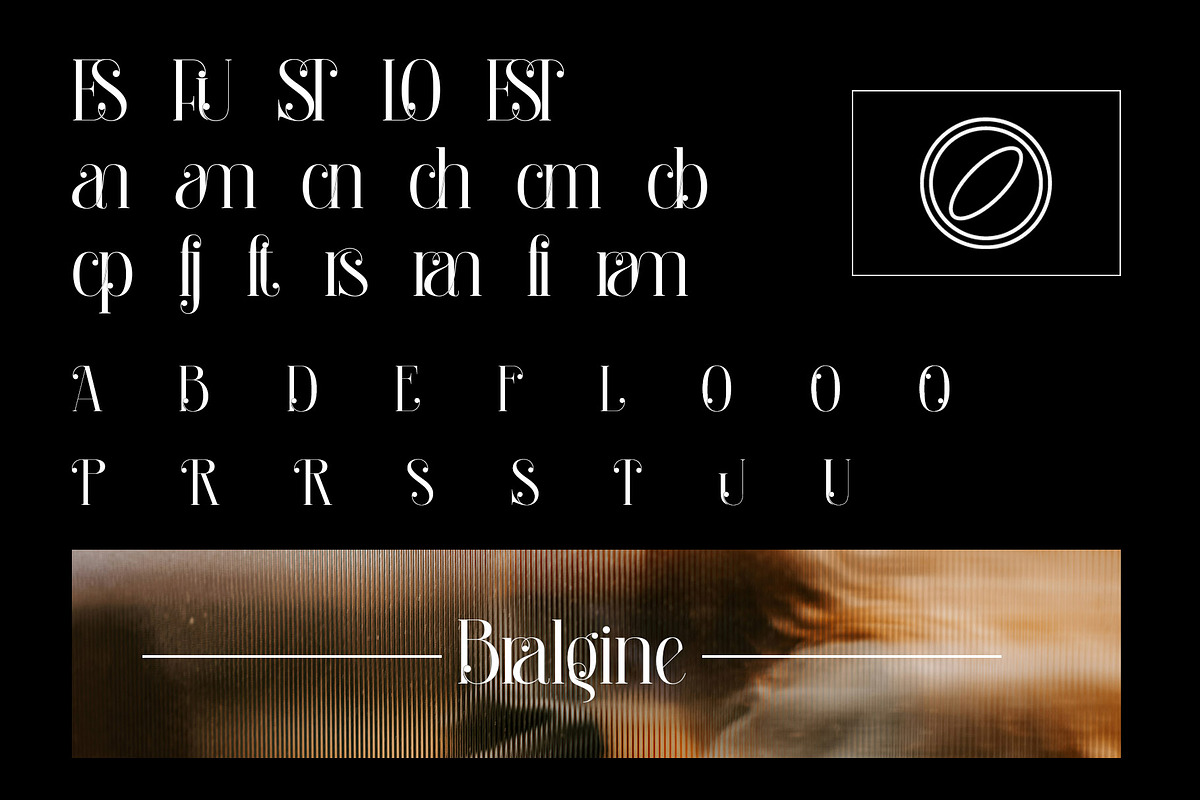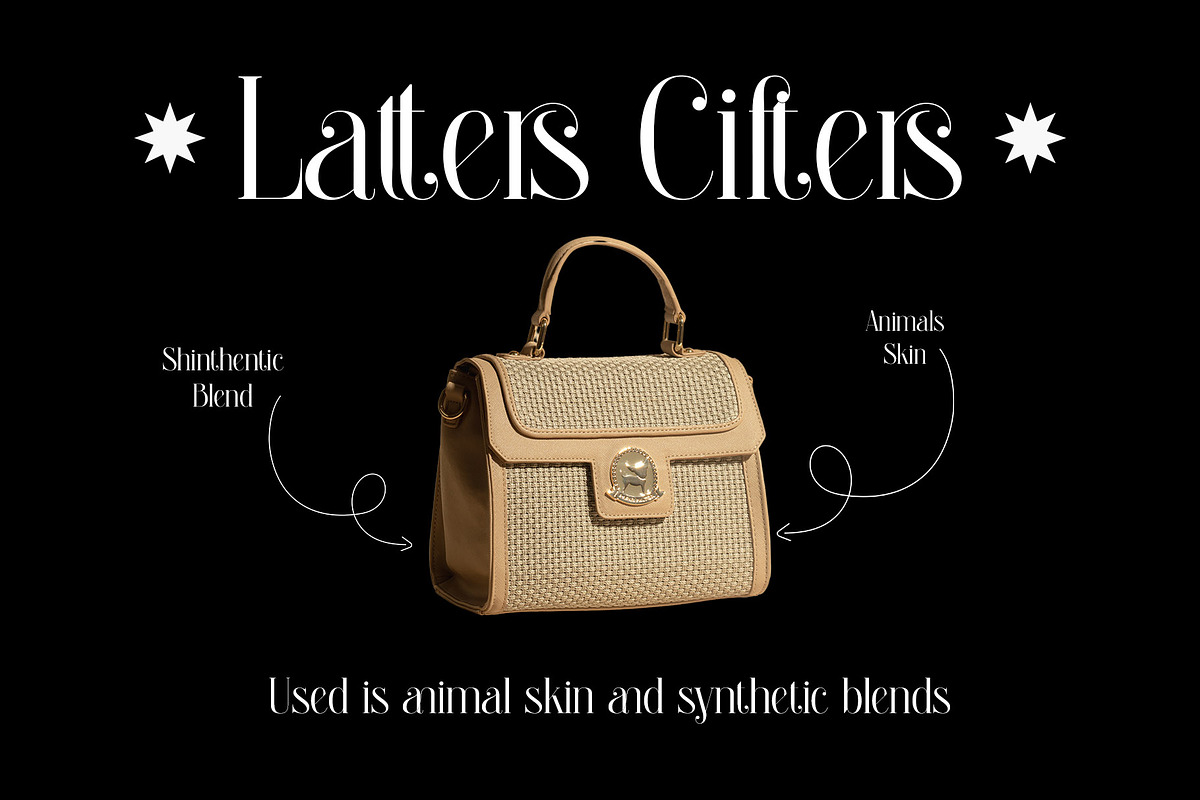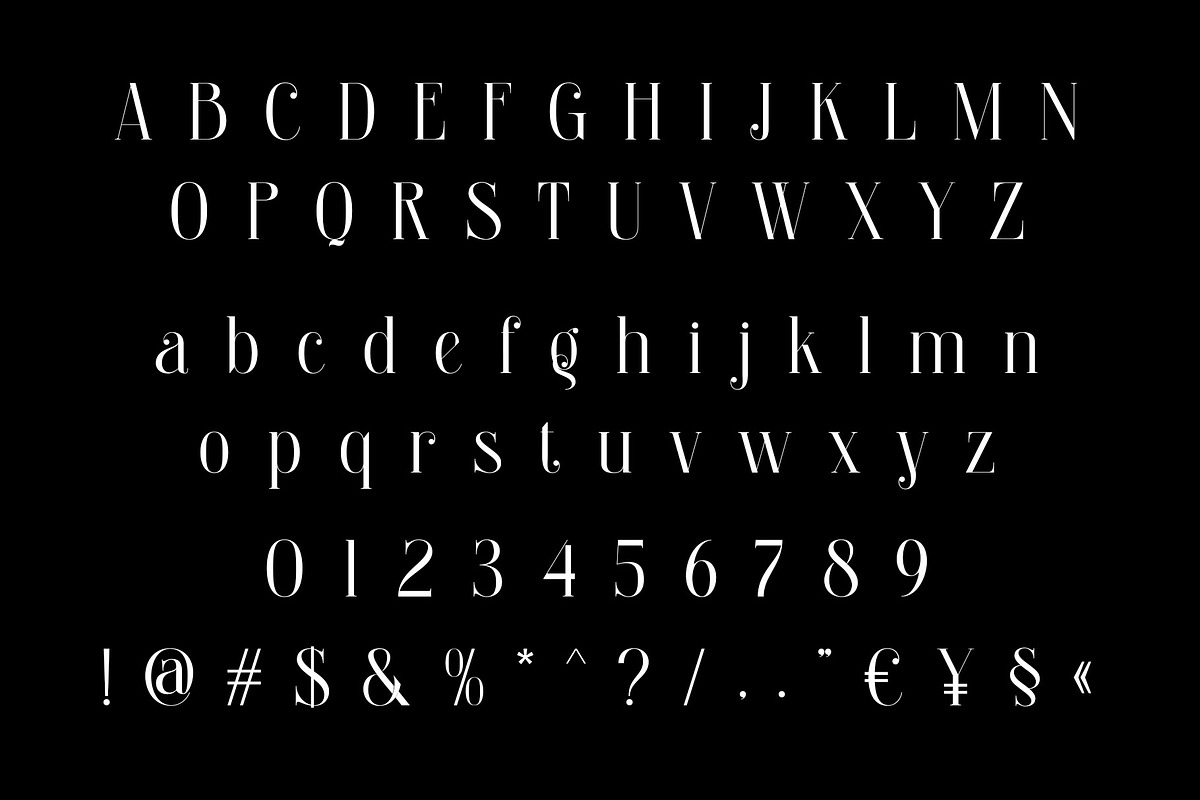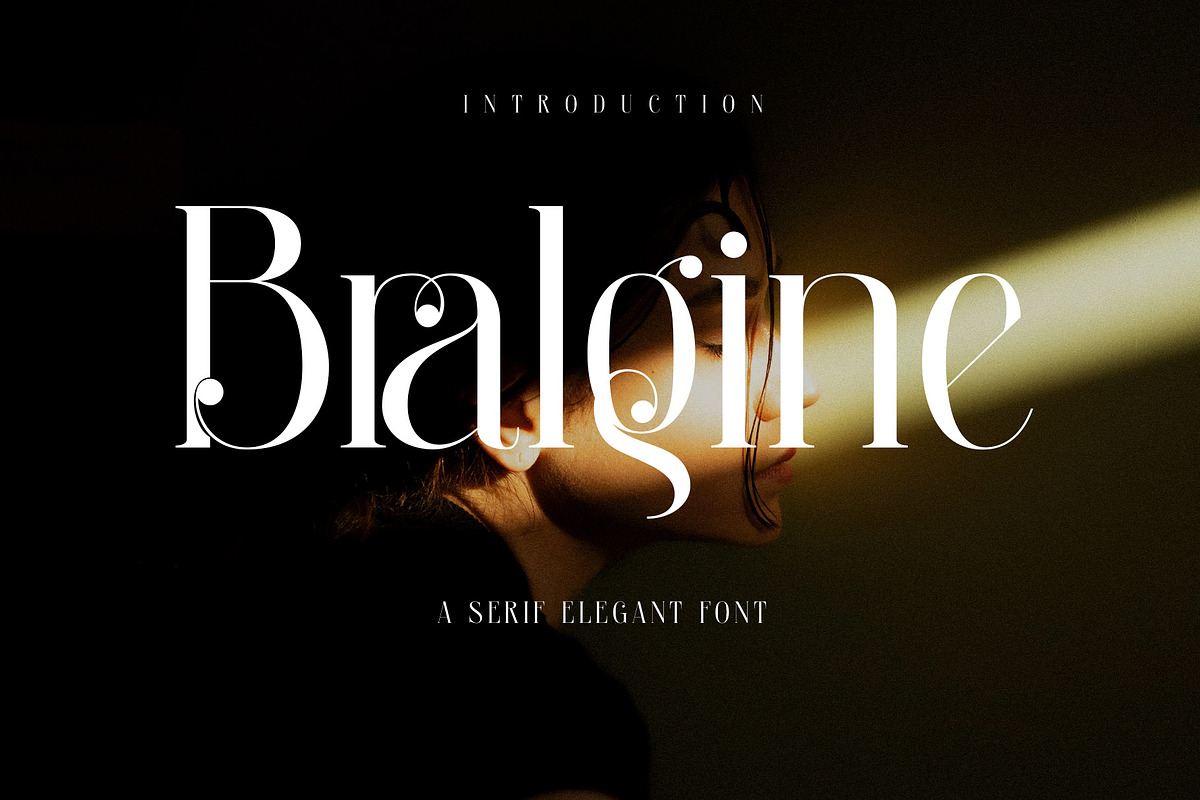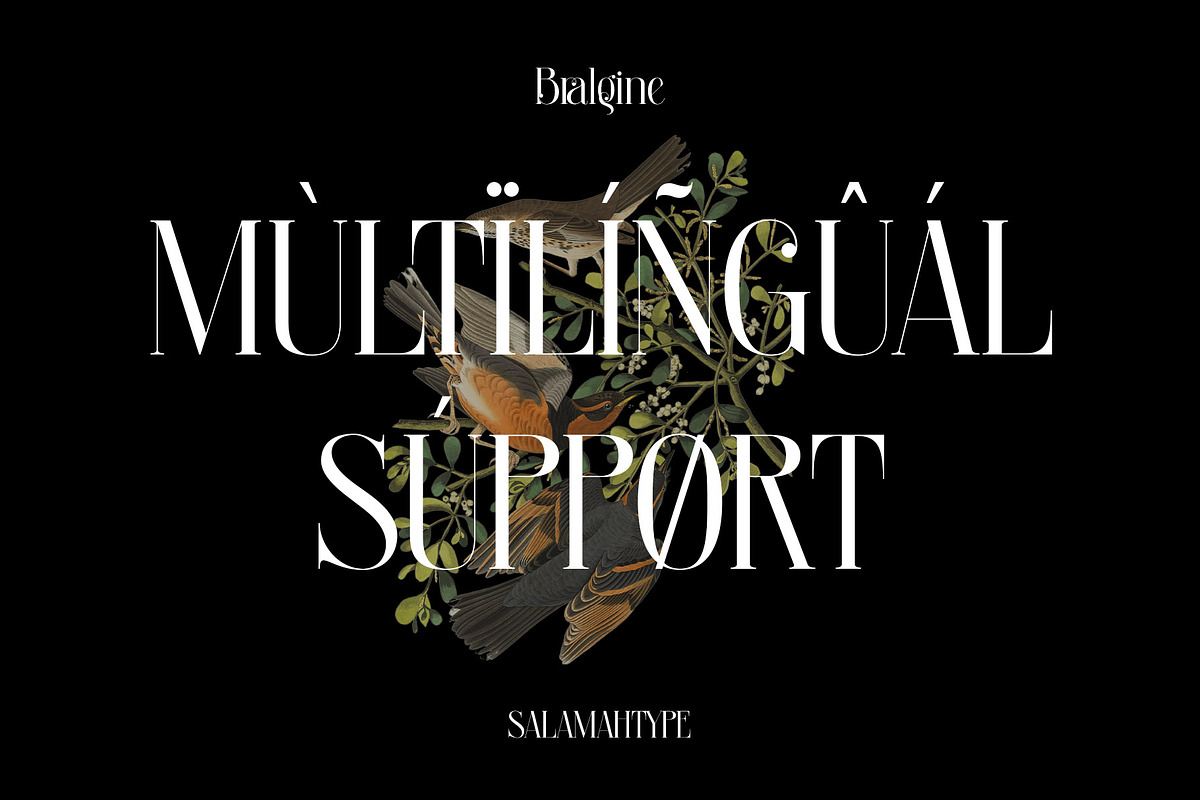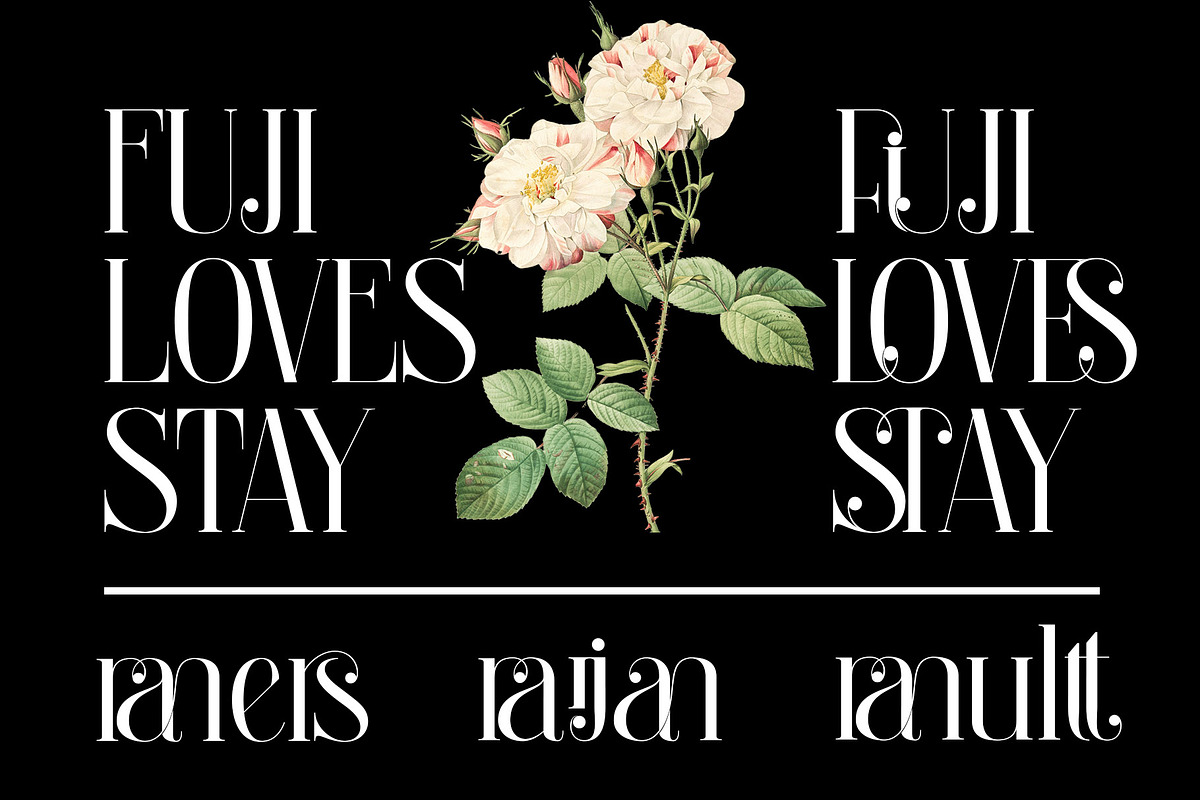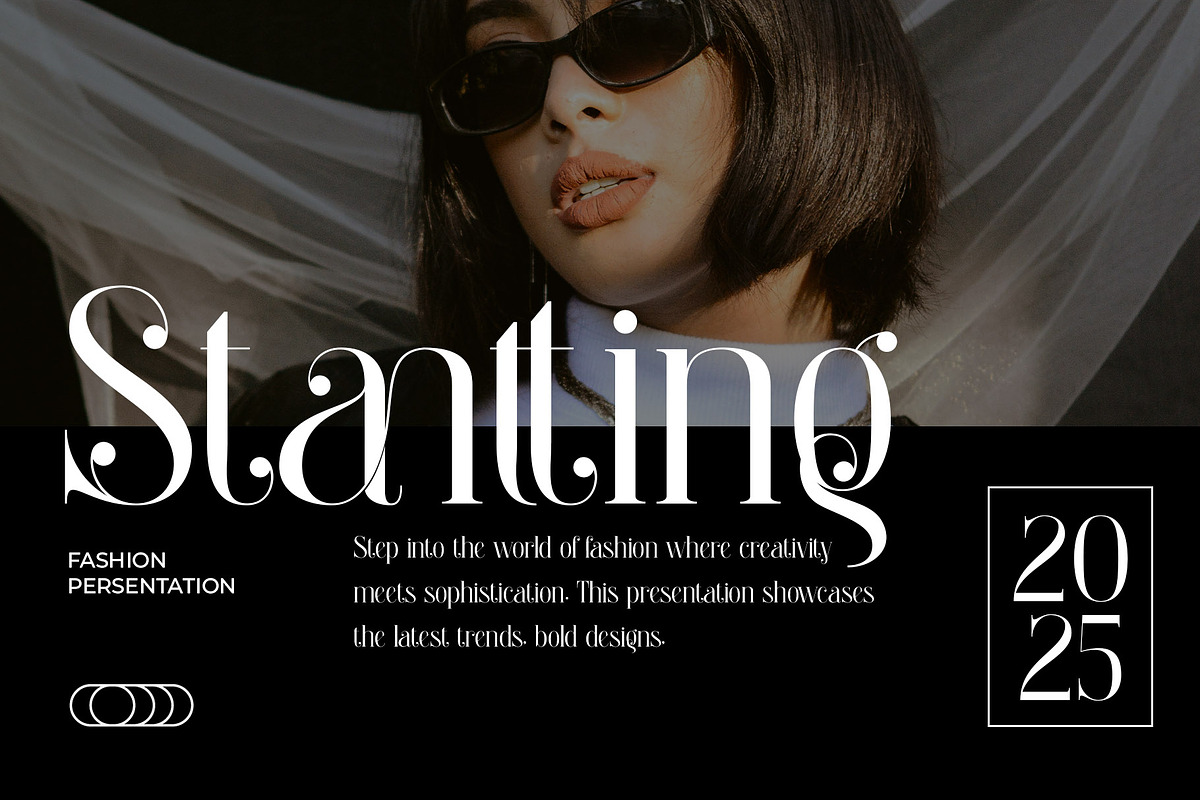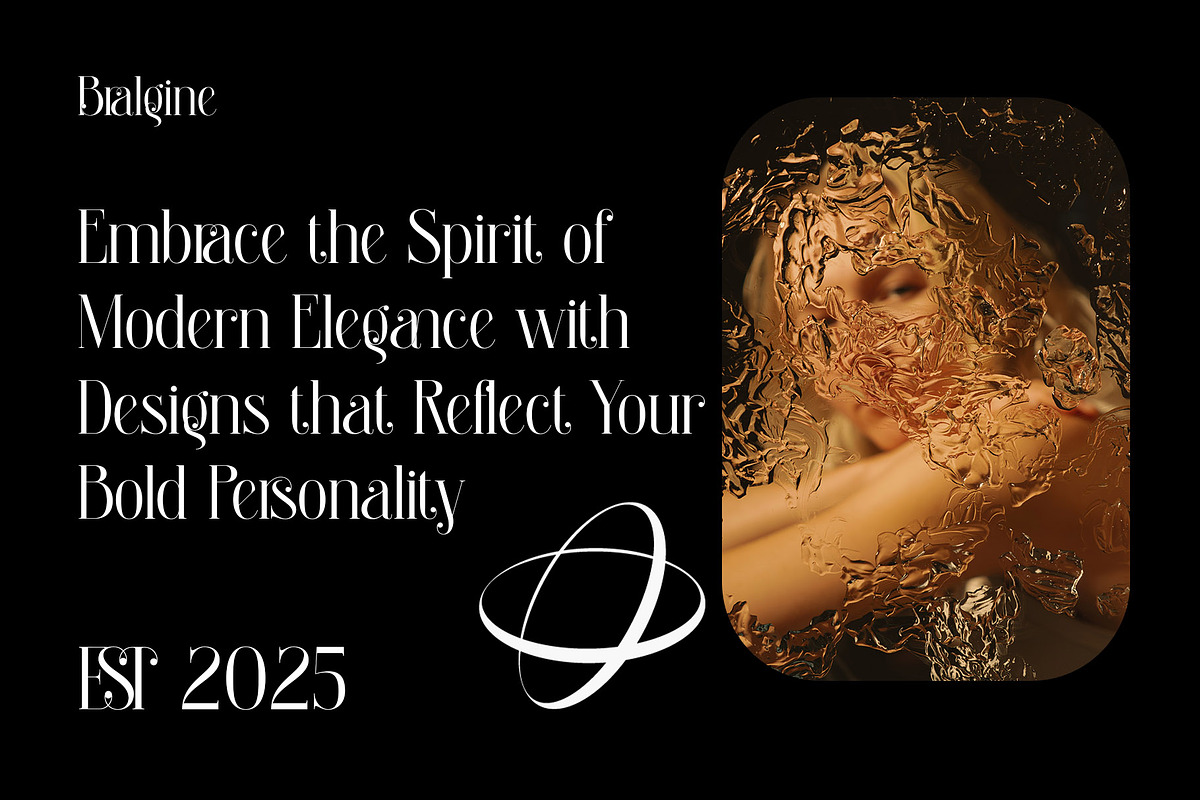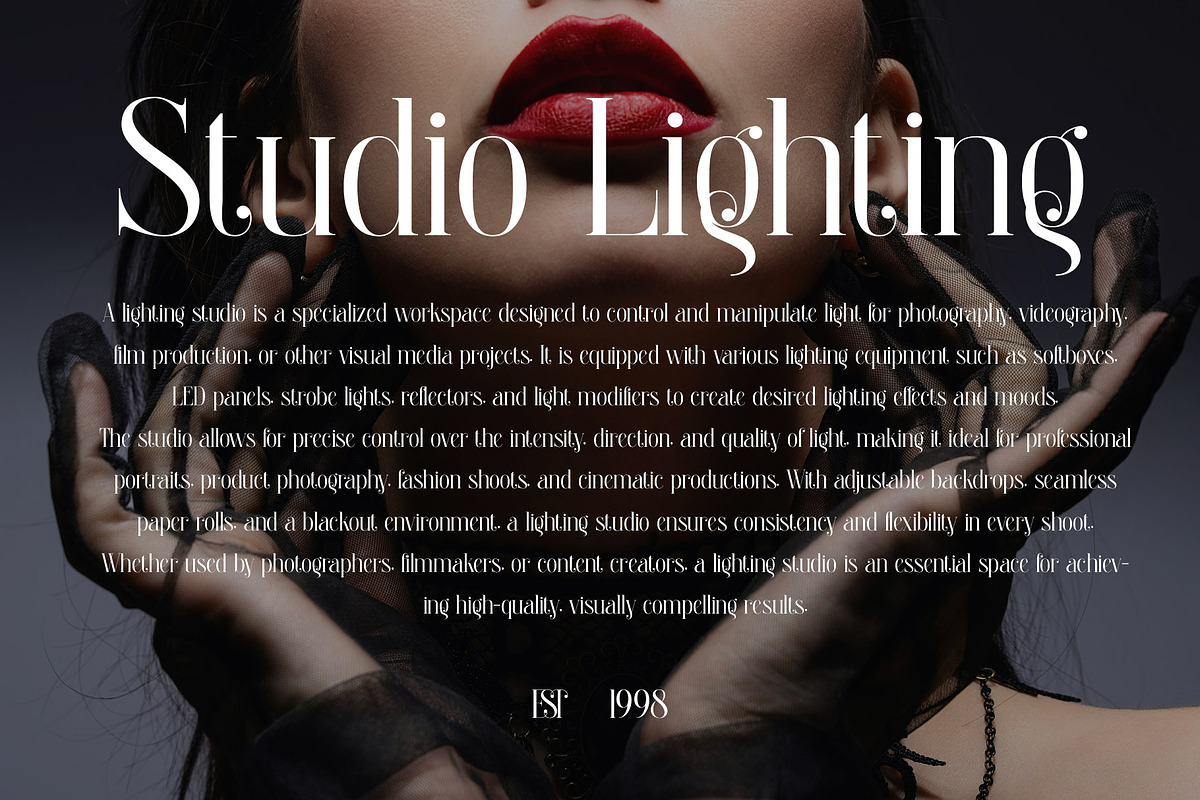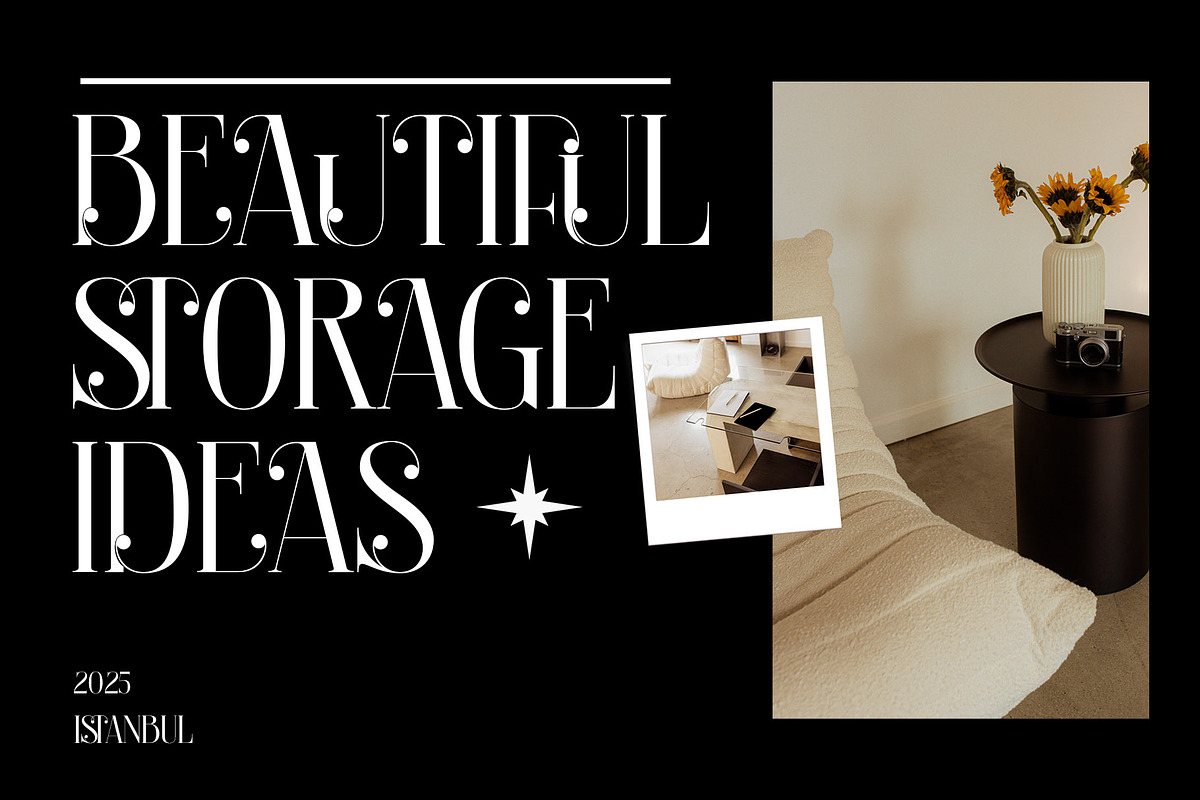
Bralgine A Modern Ligature Serif
Bralgine is a serif font designed with an elegant and modern touch, blending traditional beauty with innovative features. With its smooth lines and intricate details, Bralgine offers a captivating sophistication, perfect for various designs aiming to convey a feminine, luxurious, and contemporary feel.
Each letter in Bralgine is equipped with unique ligatures that not only enhance the artistic flair but also provide a sense of fluidity and refinement in every word. This feature makes Bralgine ideal for design applications that require a balance of elegance and uniqueness, such as luxury branding, logos, wedding invitations, and modern graphic design projects.
Bralgine exudes a sophisticated and timeless character, making it a perfect choice for projects that prioritize femininity and exclusivity. Its stylish, modern design is well-suited for industries such as fashion, beauty, jewelry, and high-end events. With Bralgine, every word becomes a work of art full of meaning and elegance.